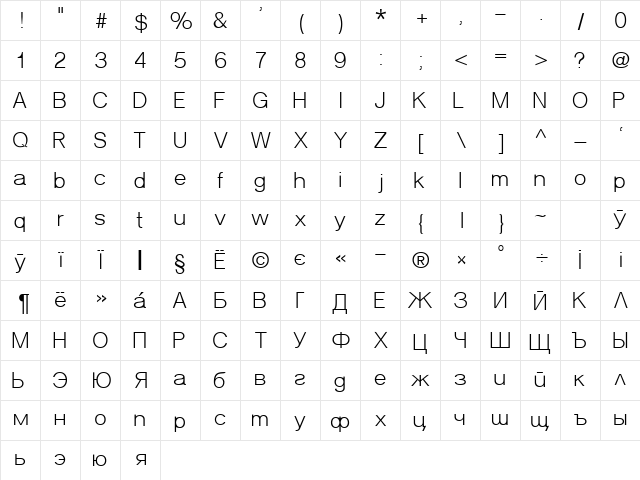
Verona Normal
Design Context for Verona Typeface
Verona offers clean, dependable letterforms without strong stylistic allegiance, making it a practical choice for designers who need flexibility.
Pro Tip: Use Verona in both headline and body roles to test its range before committing to a single application.